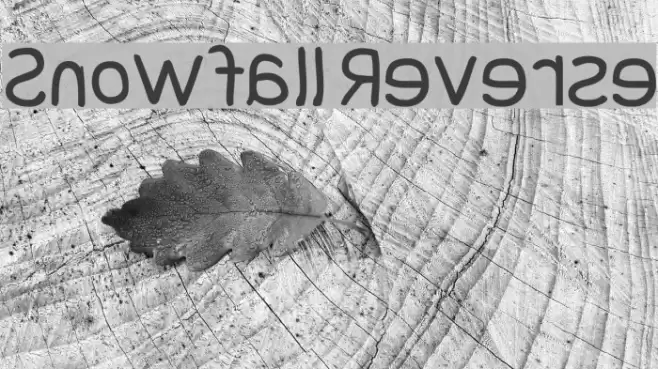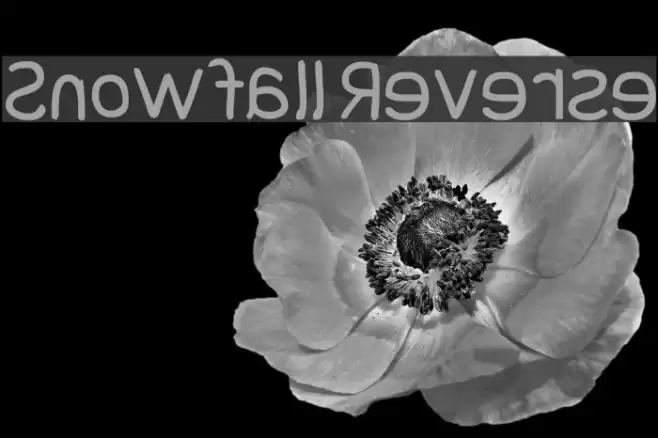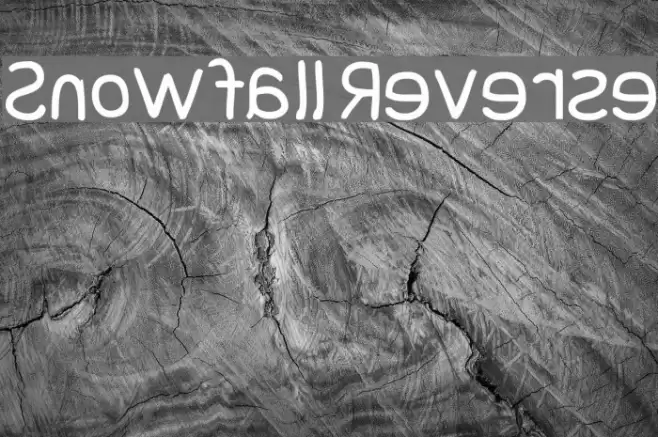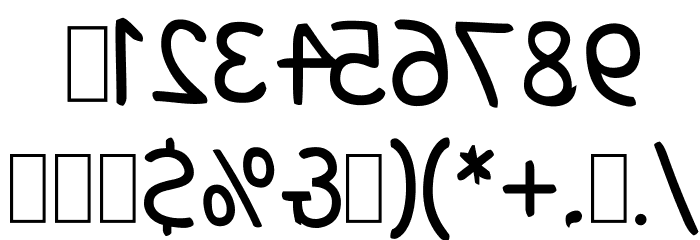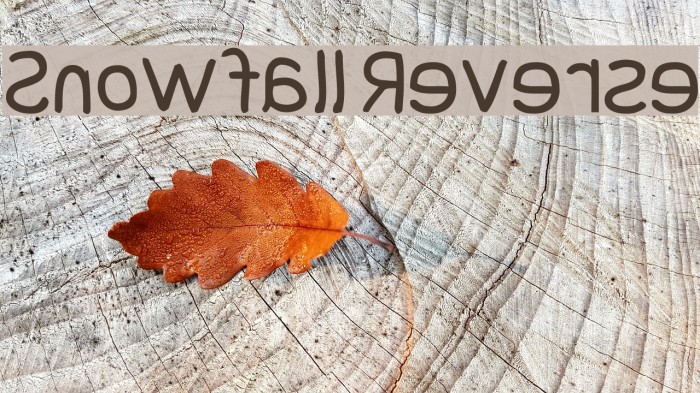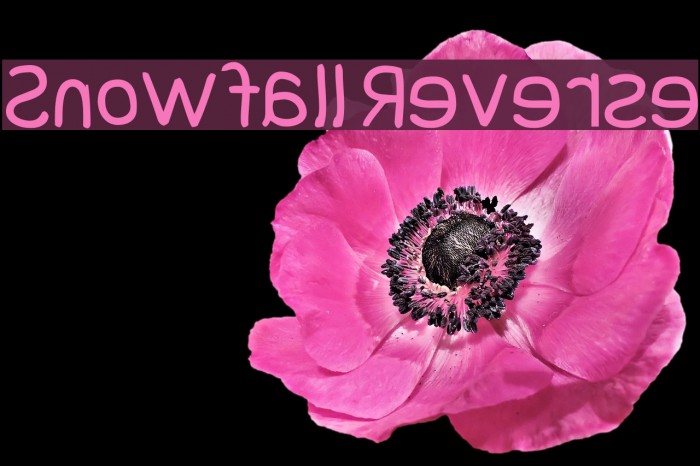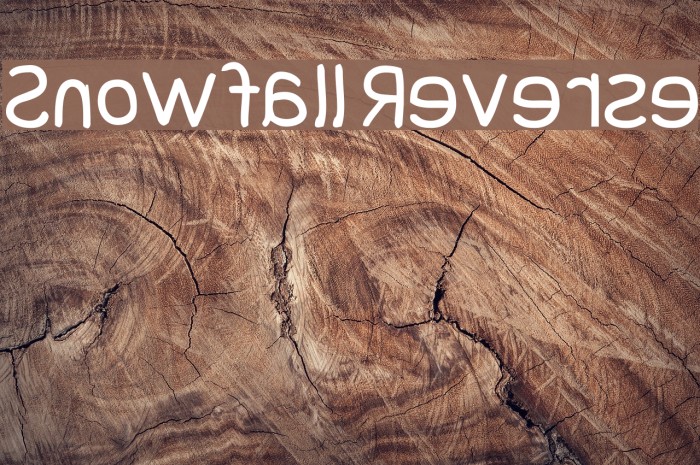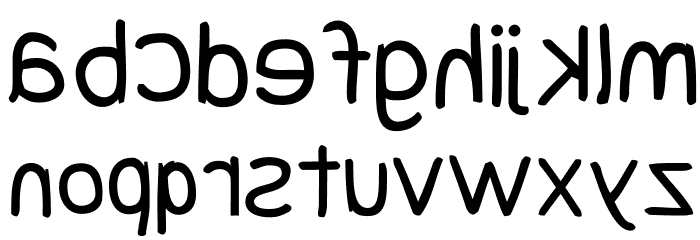
Snowfall Reverse Font
Snowfall Reverse Description
This playful and whimsical font features rounded, slightly irregular characters that give it a hand-drawn appearance. The letters are bold and have a friendly, approachable style, making them suitable for informal and creative projects. The font maintains a consistent stroke width, contributing to its casual and relaxed feel. The characters are well-spaced, ensuring readability while maintaining a lively and dynamic look. Its unique style is perfect for capturing attention and adding a touch of fun to any design.
A playful, hand-drawn style font with rounded, bold characters from Uncategorized fonts.
- Proposed Projects: Ideal for children's books, greeting cards, playful branding, and creative posters.
- Overall Style: Playful
- Use Case: Headlines, Logos, Informal Text